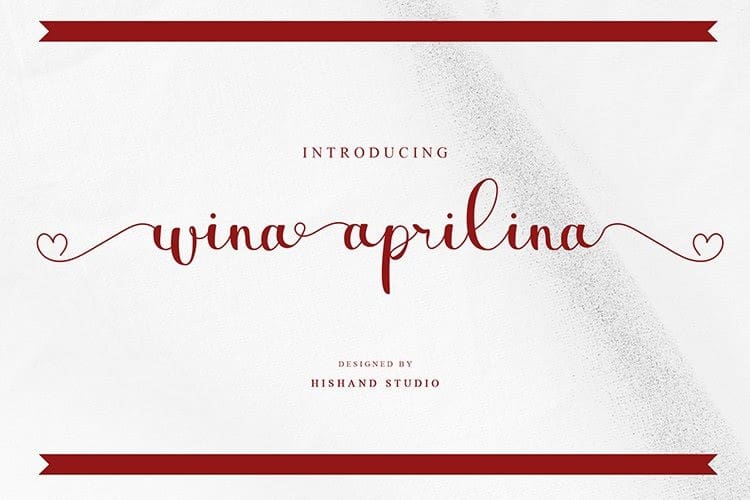
Wina aprilina Font
Introducing a beautiful romantic script font called “Wina aprilina Calligraphy Font“, a special fonts for valentine and wedding events. Come with open type feature with a lot of alternates and end swash, its help you to make great lettering. wina aprilina is a beautiful script font that really good for water mark, logotype, advertisement, social media posts, product packaging, clothing design and more.